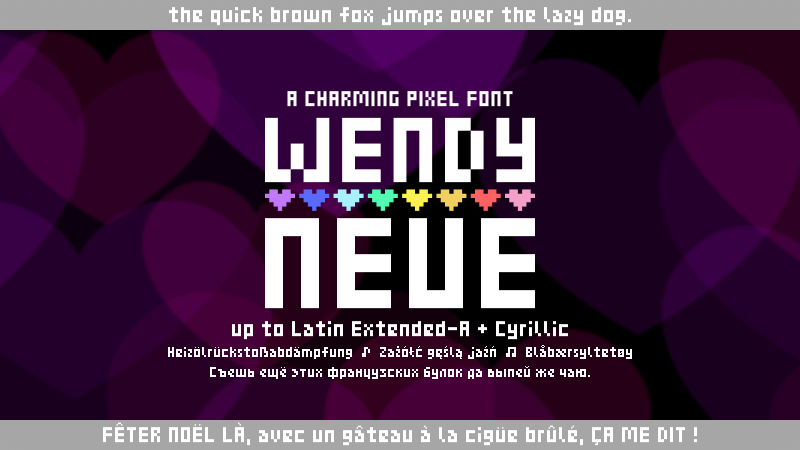
Font name: | Wendy Neue |
Author: | JapanYoshi |
Note by JapanYoshi | |
Wendy Neue is an extension of the 5x3 pixel font Wendy (https://www.dafont.com/wendy.font). It keeps all the uppercase letters and numbers of the original, and extends the font to add coverage to lowercase, Latin Extended-1, and Cyrillic. Some letterforms include half-size pixels, making this font more like a 10x6 pixel font unlike the original. As the original Wendy was used for the Stepmania 3 theme "Simply Love", this font was requested and created for translating the Stepmania 5 clone of Simply Love. It is released 100% free to use. Credit is very much appreciated, but not required. |